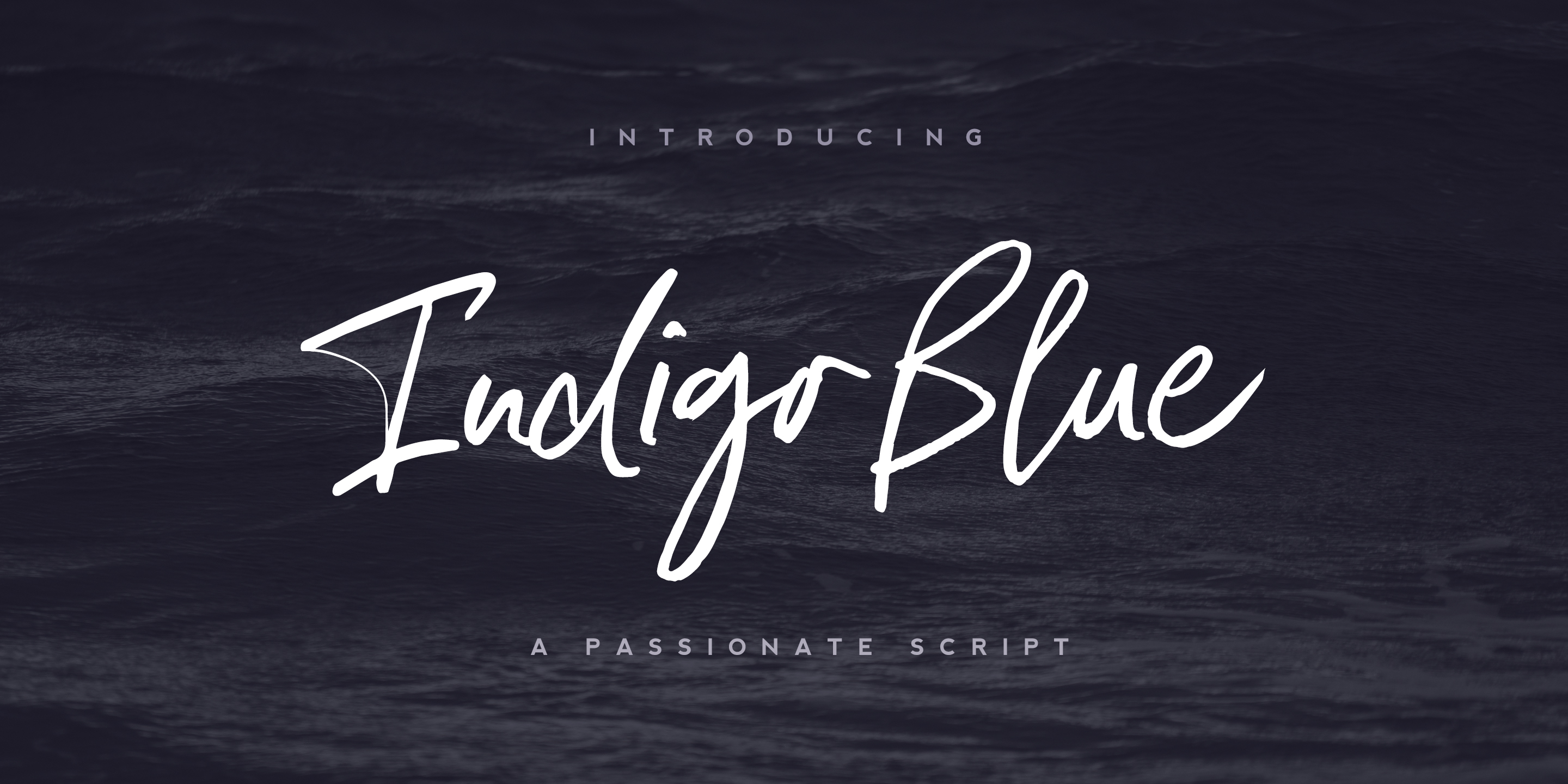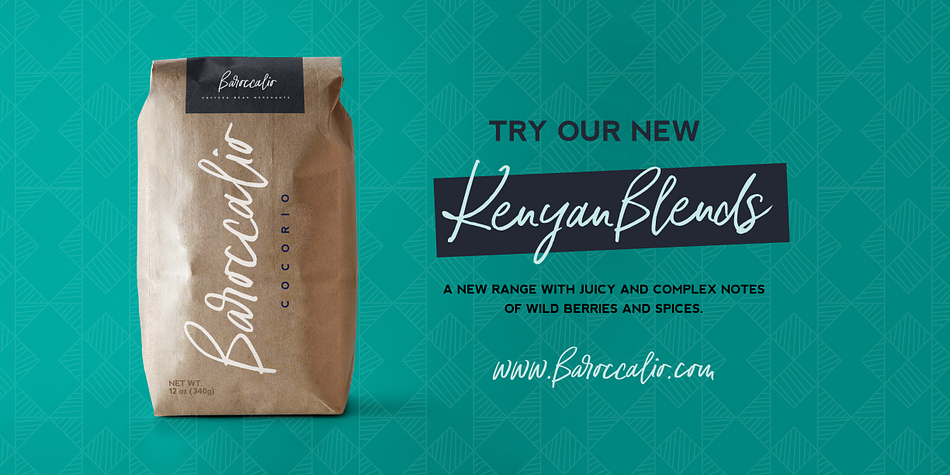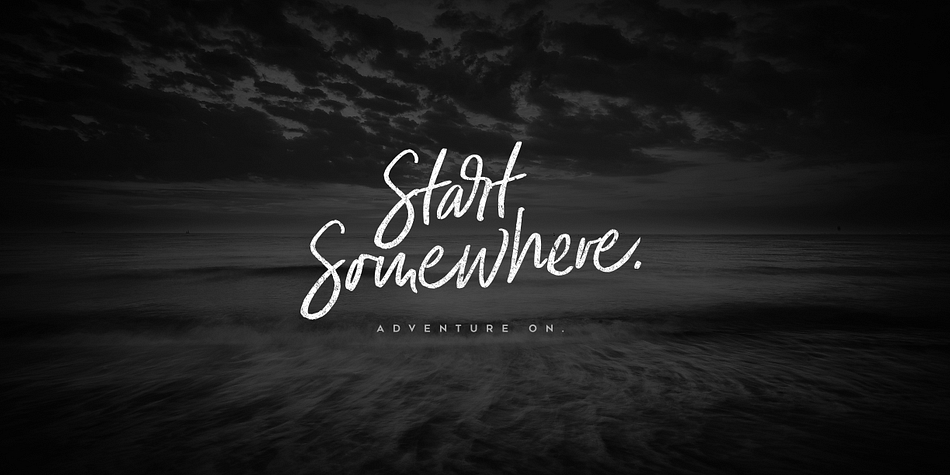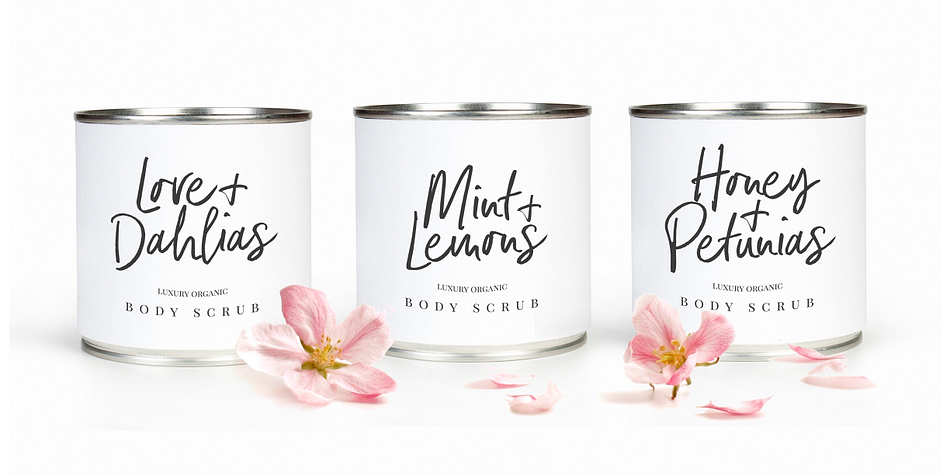
Indigo Blue
Designed by Nicky Laatz, Indigo Blue is a dingbat, hand drawn and script font family. This typeface has three styles and was published by Nicky Laatz.
Indigo Blue is a casual handwritten script with a signature style.
It includes opentype features -  stylistic alternates for both upper and lowercase letters, and a extensive set of natural looking Ligatures to add to the realistic nature of the typeface.
Also included is a handy swashes font with 38 unique swashes and hand-inked circles to add an accented feel to your type design.
Displaying the beauty and characteristics of the Indigo Blue font family.
Highlighting the Indigo Blue font family.
Emphasizing the favorited Indigo Blue font family.
Emphasizing the popular Indigo Blue font family.
Indigo Blue font family example.
Indigo Blue font family sample image.
Indigo Blue is a three font, dingbat, hand drawn and script family by Nicky Laatz.
Indigo Blue is designed by Nicky Laatz and OpenType features include Stylistic Alternates and Standard Ligatures.
Designed by Nicky Laatz, Indigo Blue is a dingbat, hand drawn and script font family.
This typeface has three styles  and was published by Nicky Laatz.
Indigo Blue OpenType features include Stylistic Alternates and Standard Ligatures.
Indigo Blue is a casual handwritten script with a signature style.
It includes opentype features -  stylistic alternates for both upper and lowercase letters, and a extensive set of natural looking Ligatures to add to the realistic nature of the typeface.
Also included is a handy swashes font with 38 unique swashes and hand-inked circles to add an accented feel to your type design.